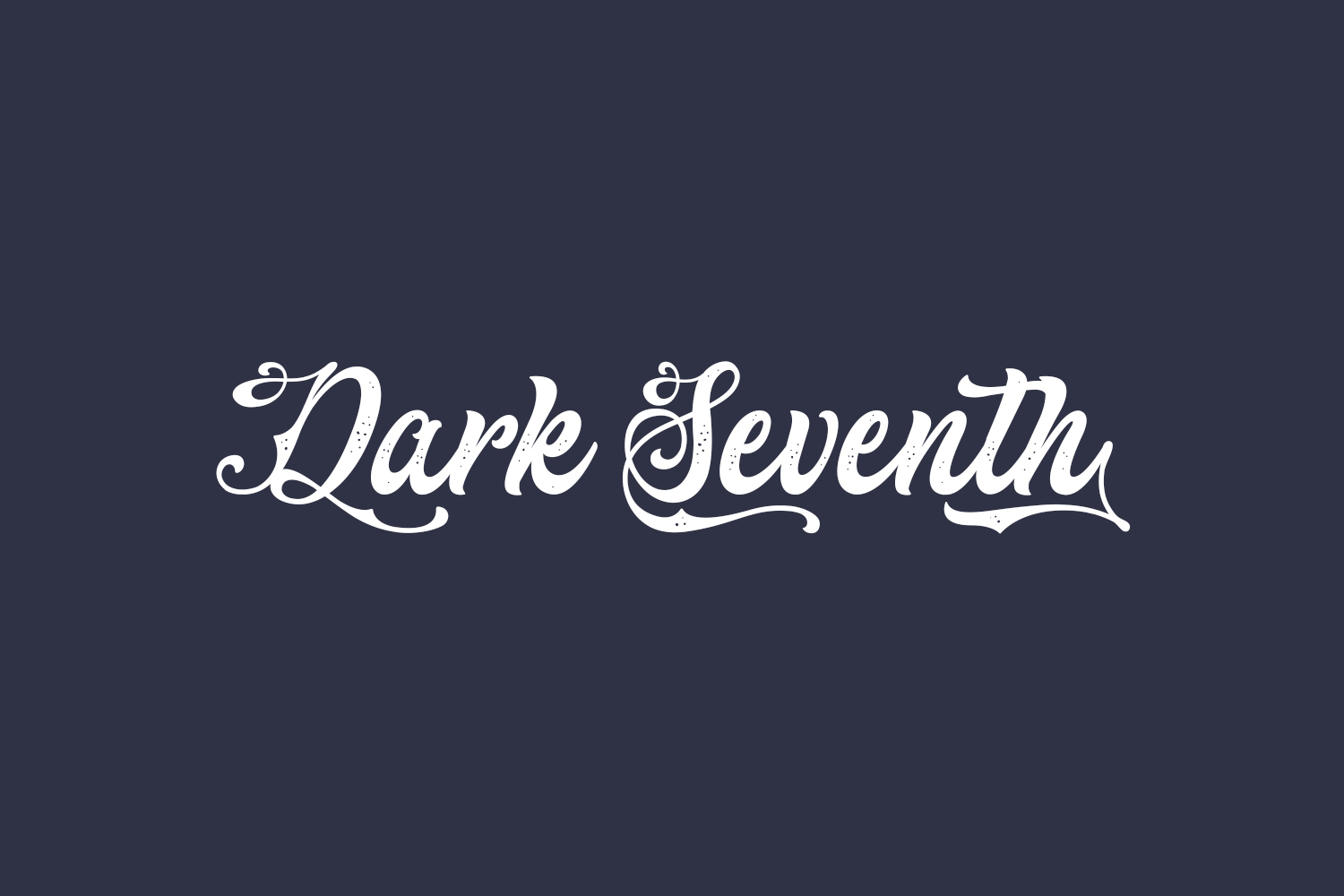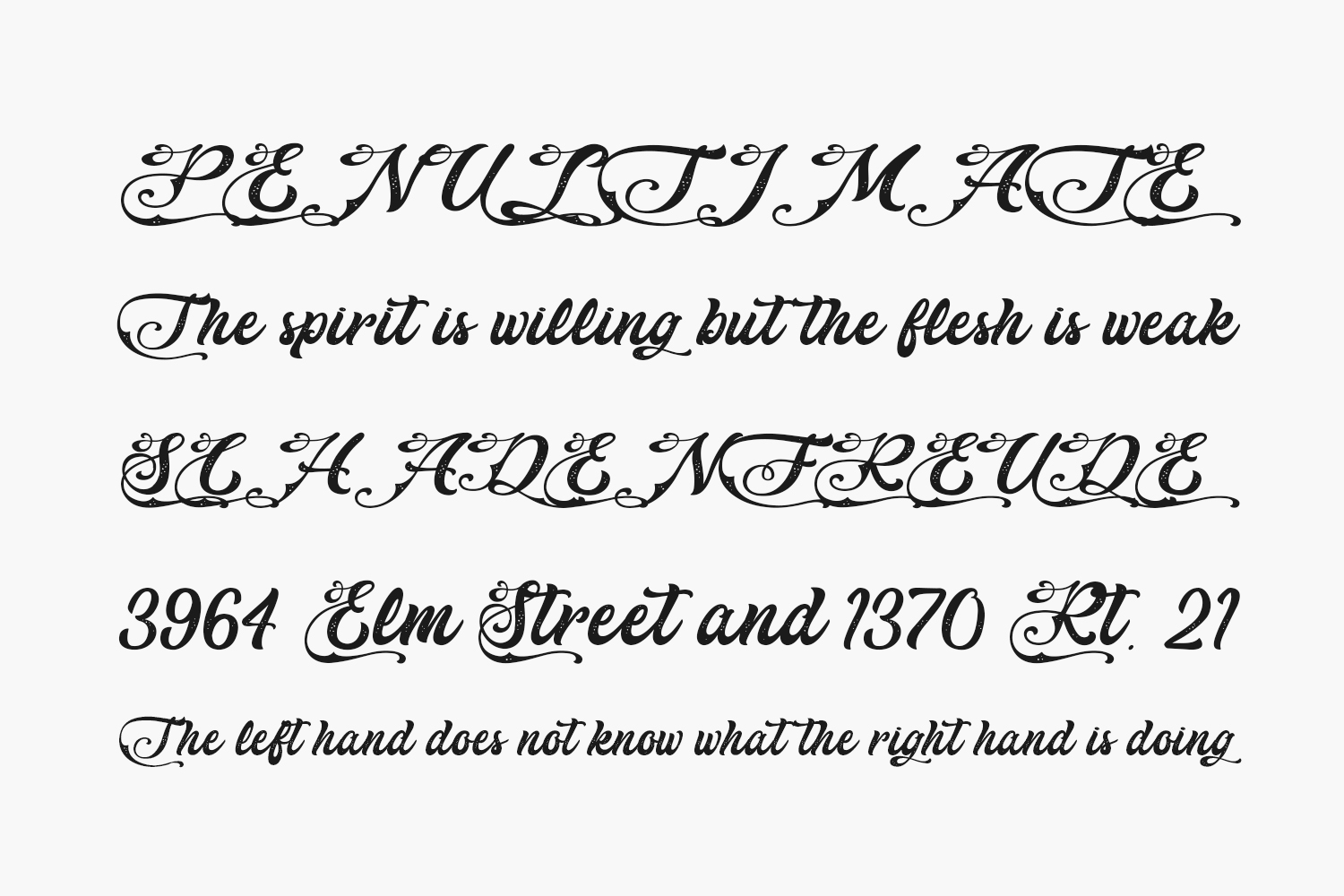
Dark Seventh Free Font is a delicate, elegant, and flowing handwritten font. It has beautiful and well balanced characters and as a result, it matches a wide pool of designs. Dark Seventh Free Font was designed by Typhoon Type™ and is free for personal use only. Please purchase the full version for commercial use.